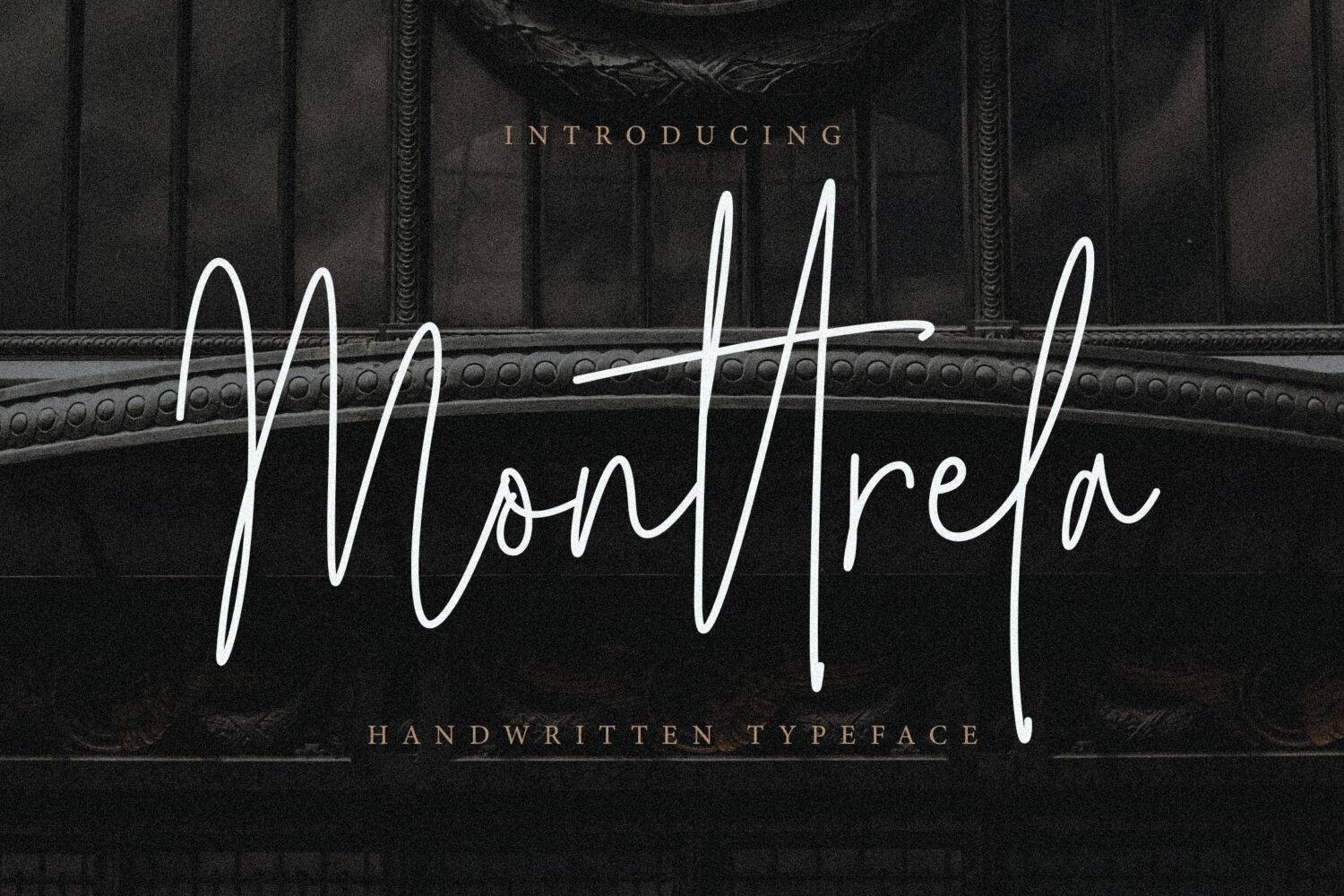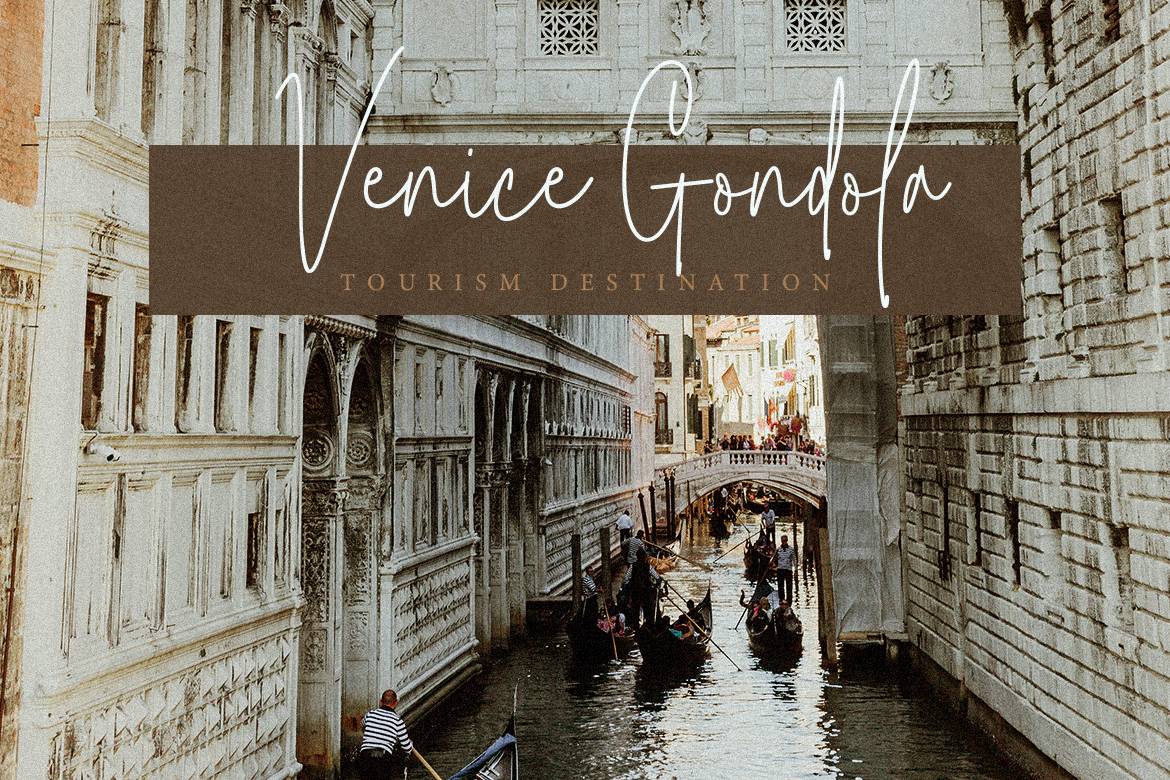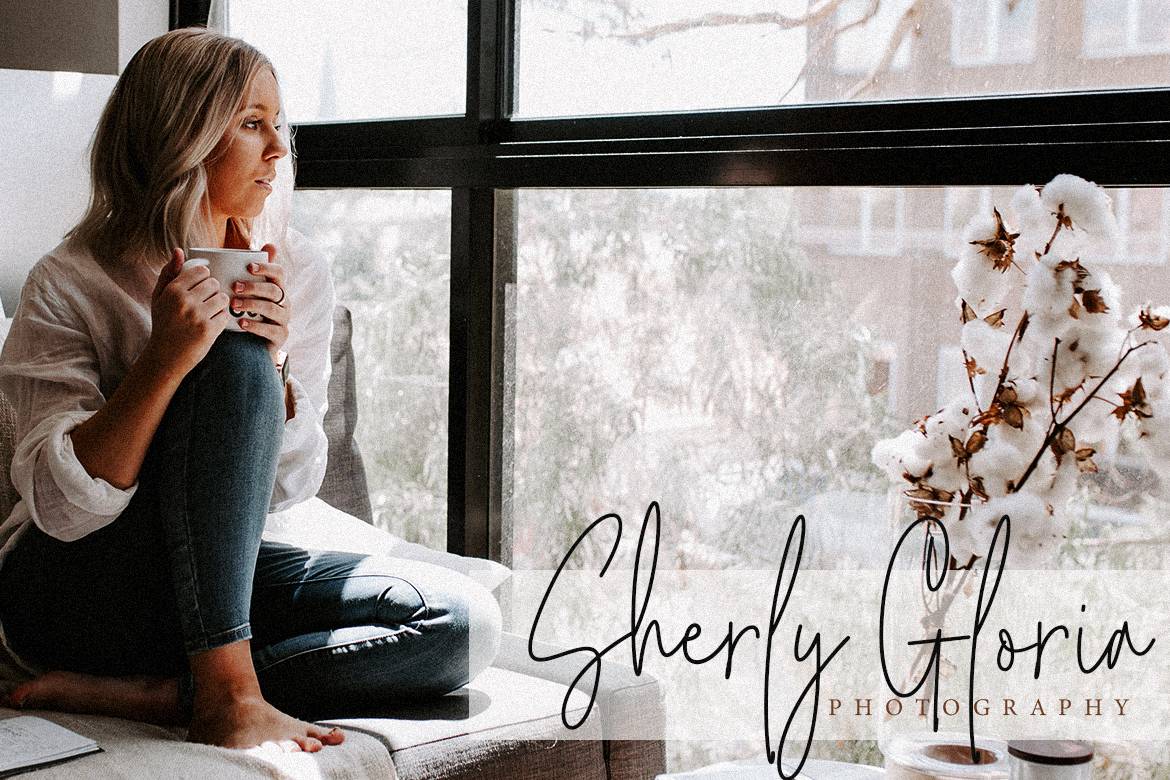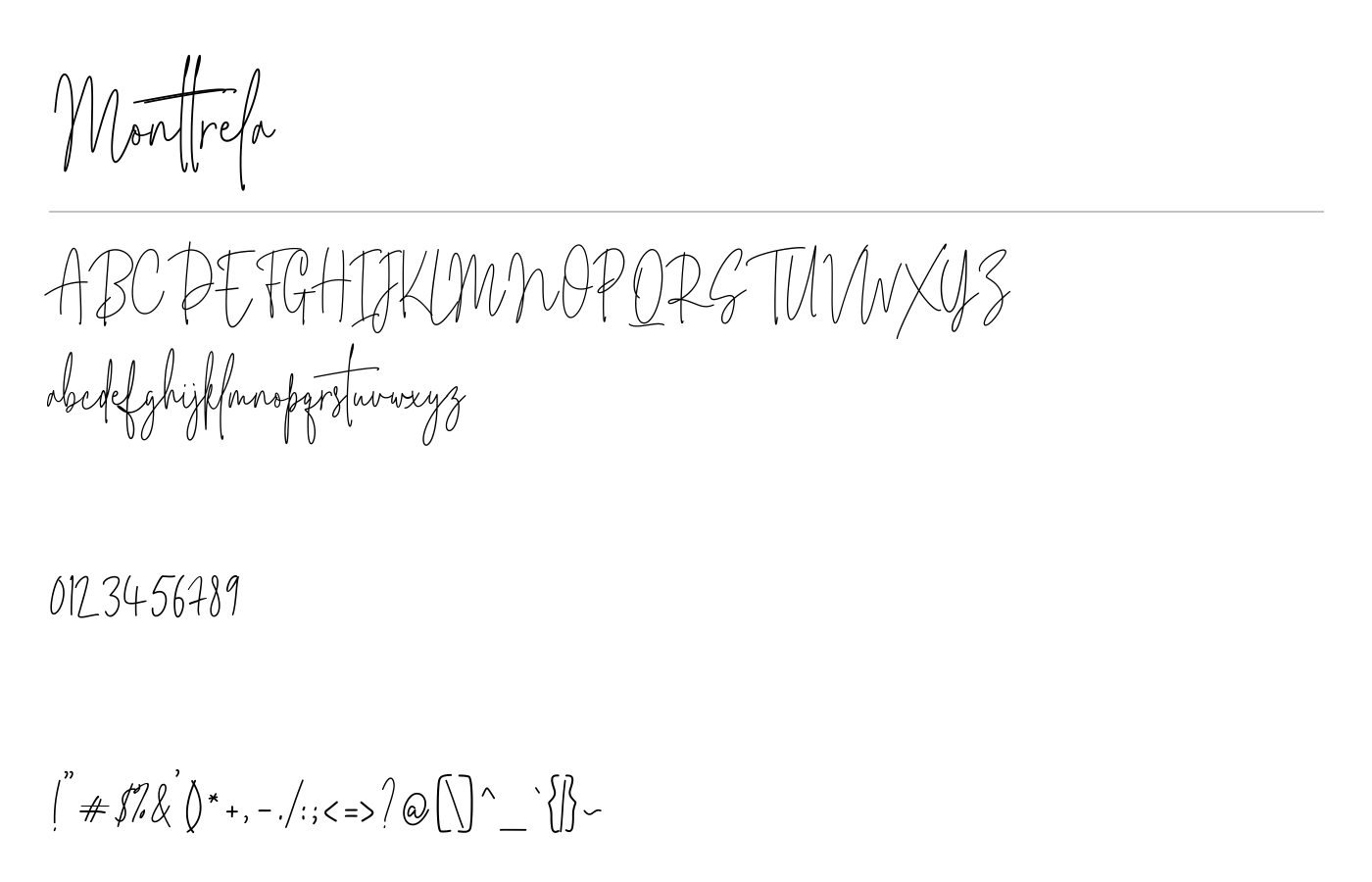
Monttrela Handwritten Font is a delicate, tall, and slender script that exudes an elegant, personal touch with its fine strokes and natural flow. Its lightweight, airy letterforms with subtle variations create a graceful, modern handwriting style perfect for adding a warm and sophisticated feel to branding, invitations, and editorial design. This font works especially well in projects where a stylish yet approachable hand-crafted look is desired.
Monttrela Handwritten Font
About Monttrela Handwritten Font